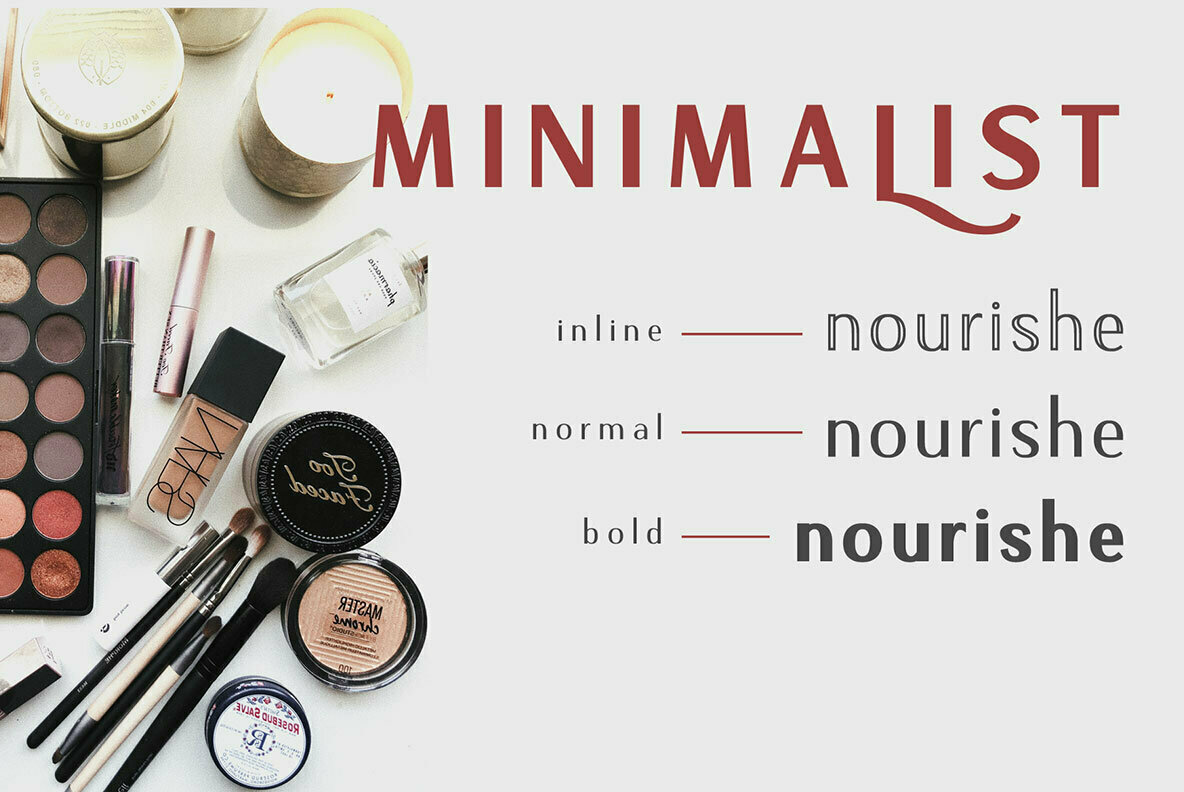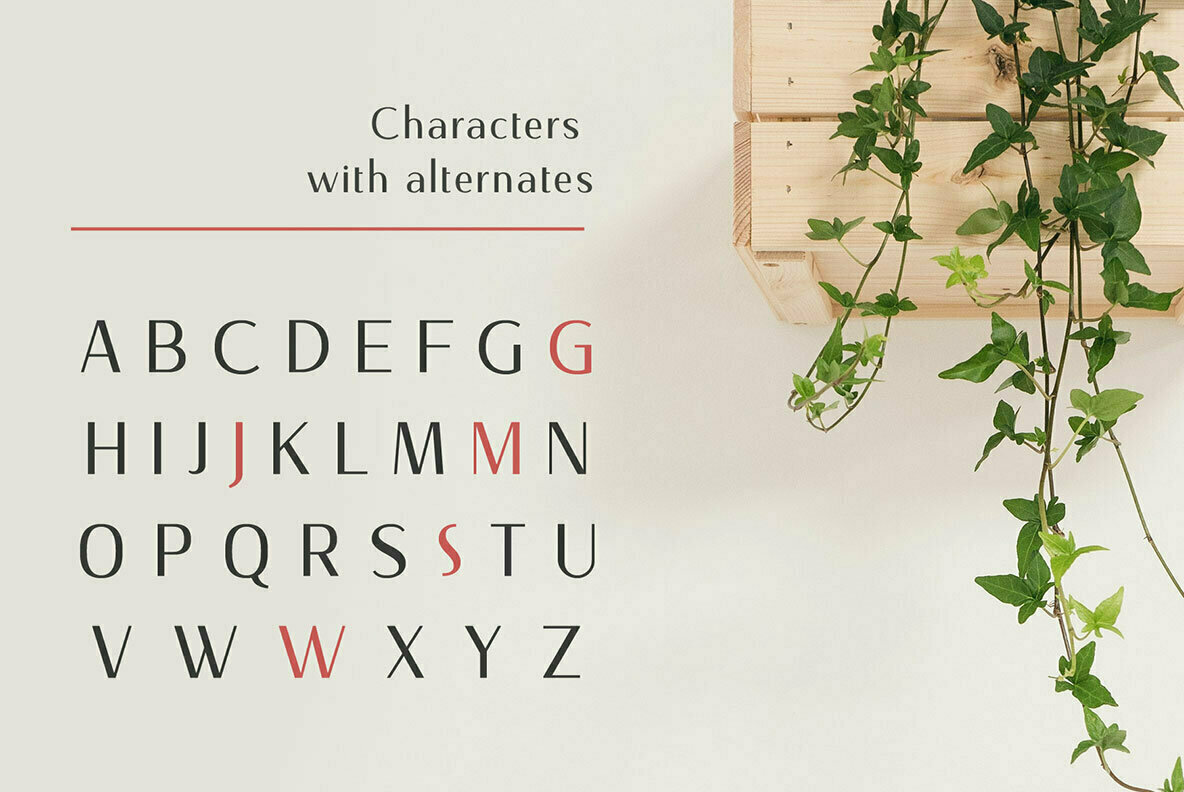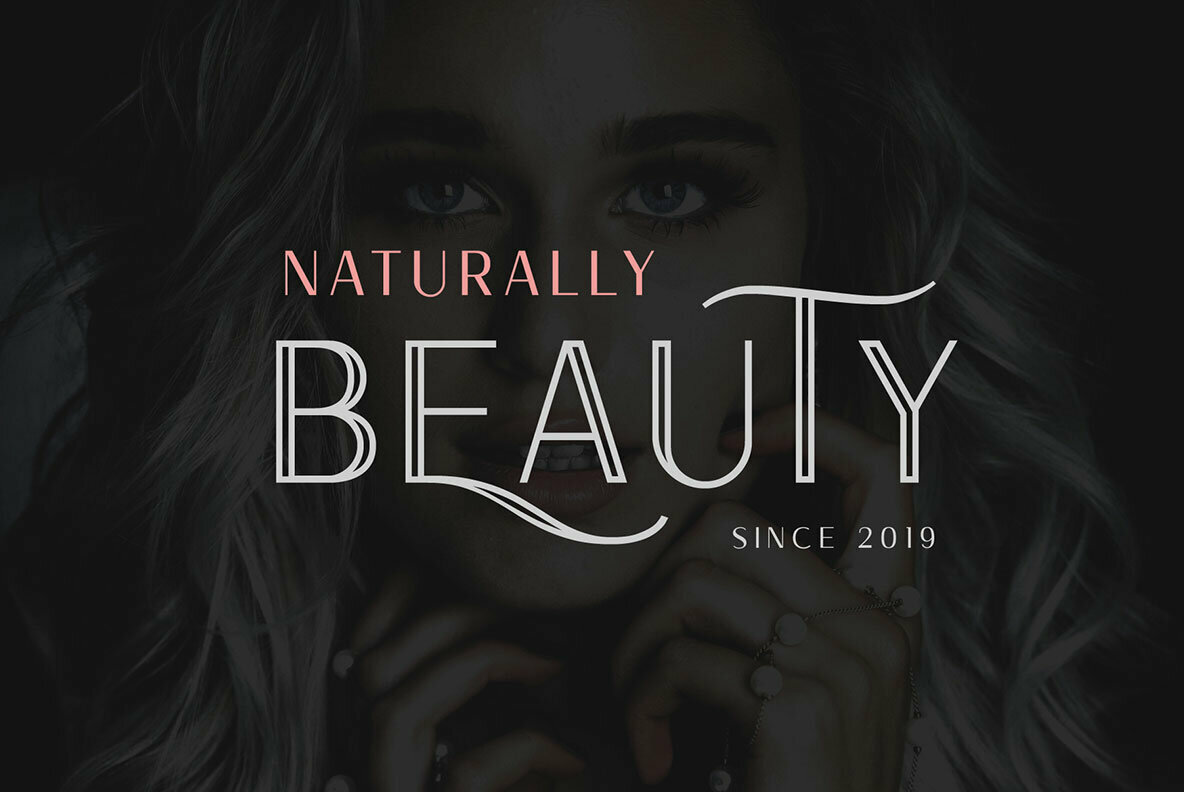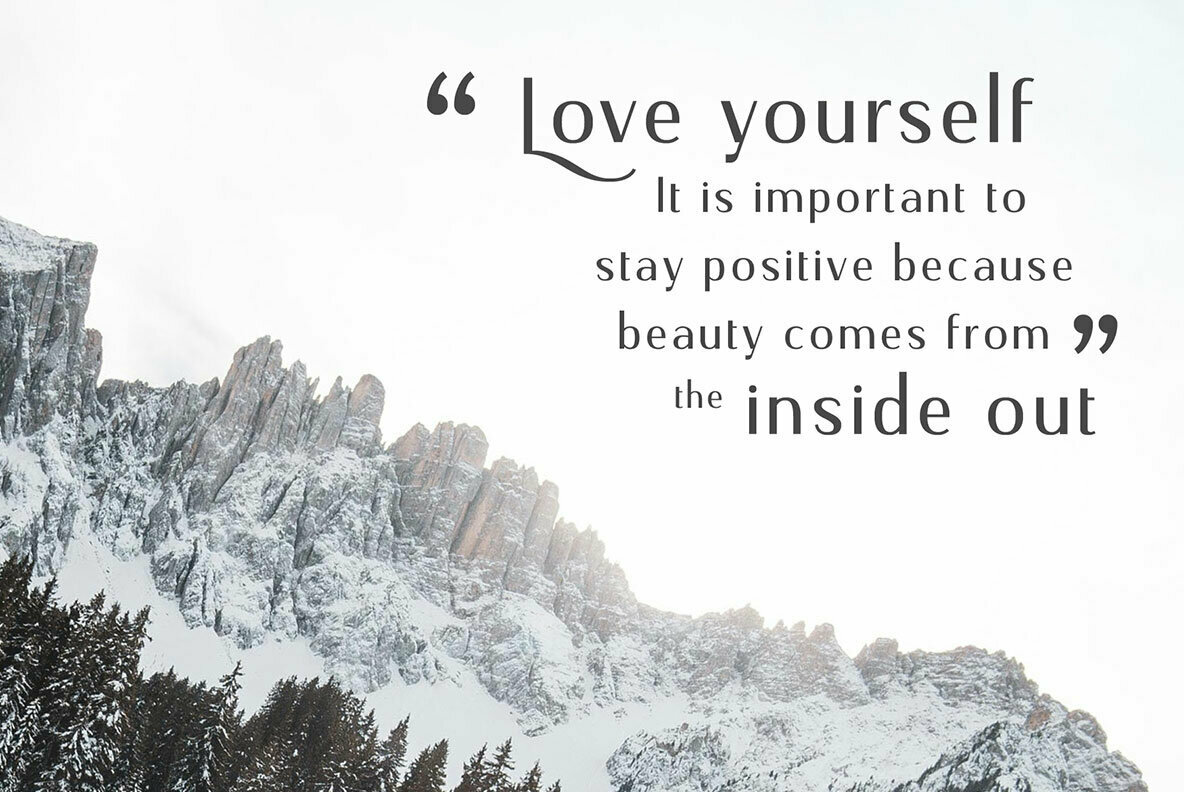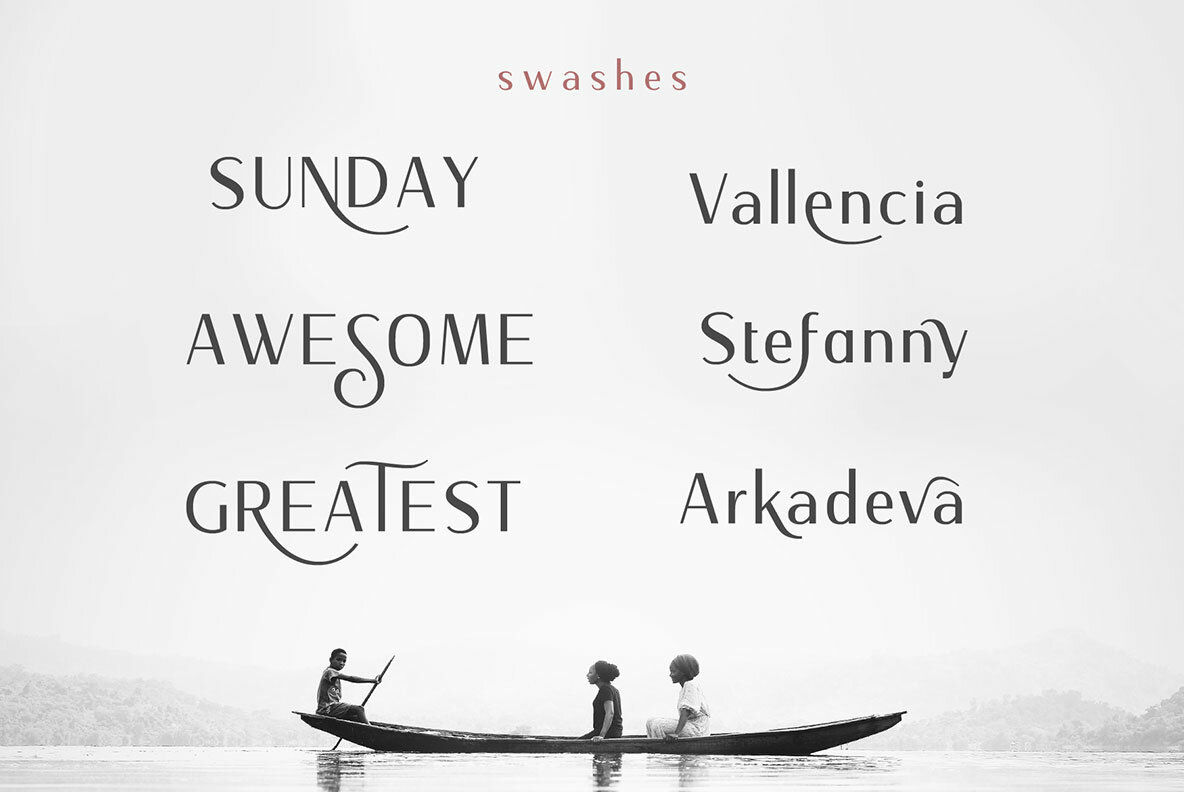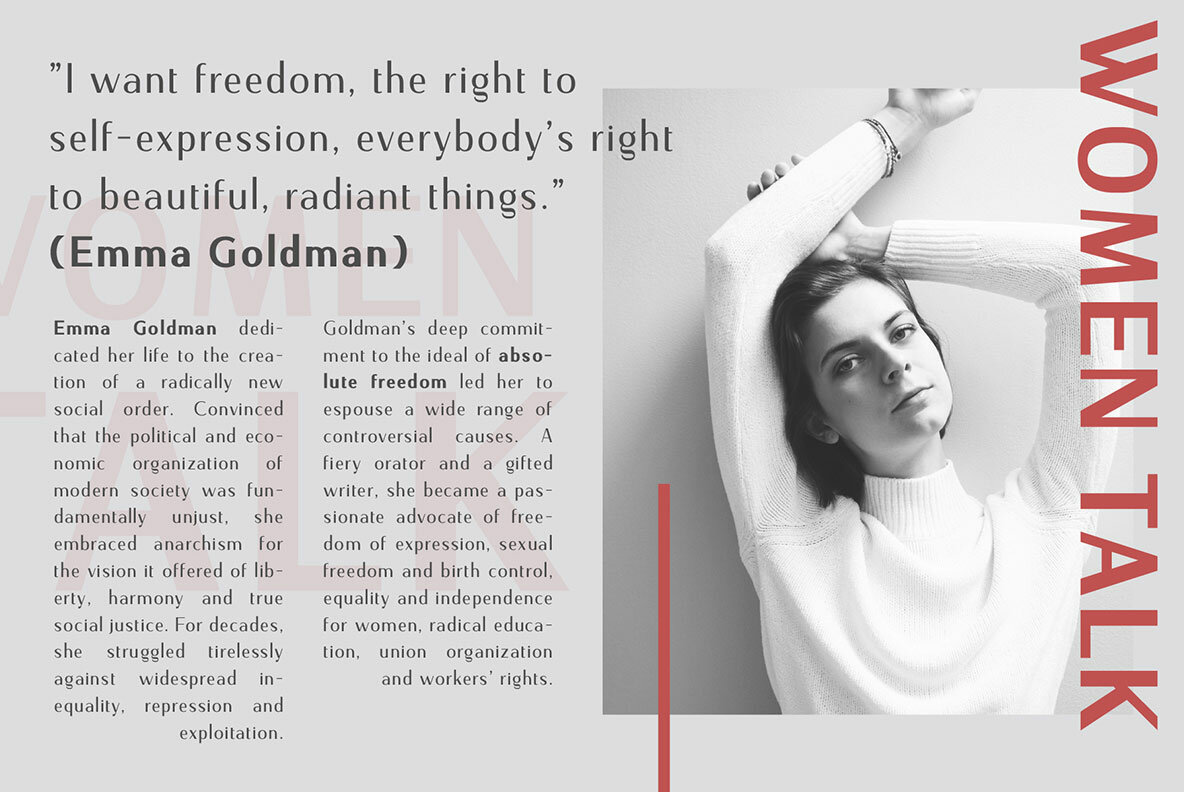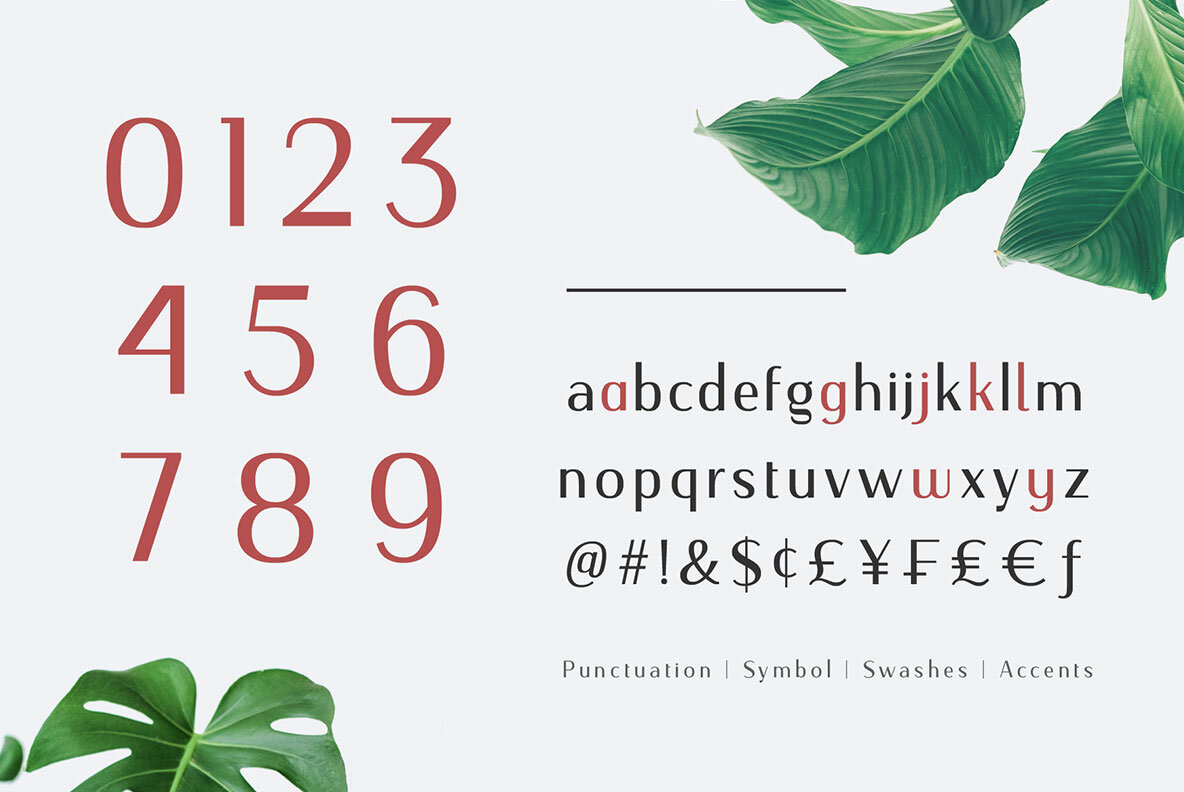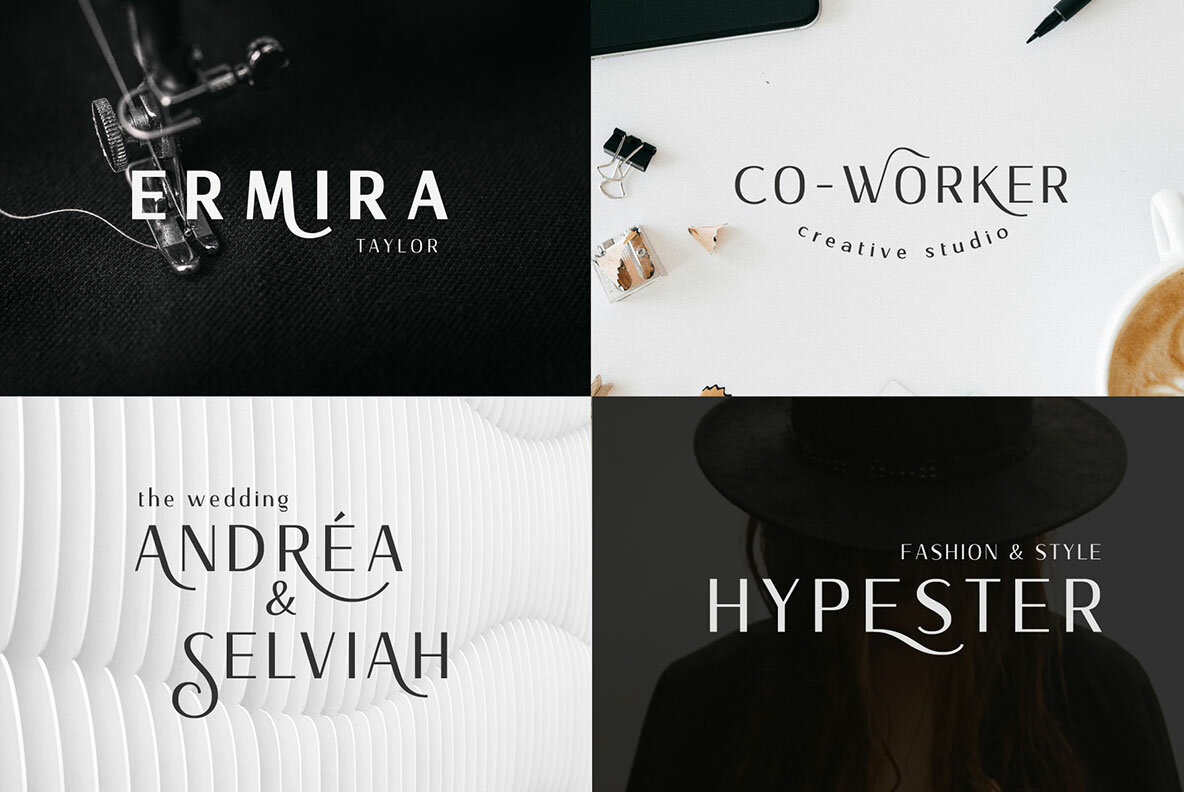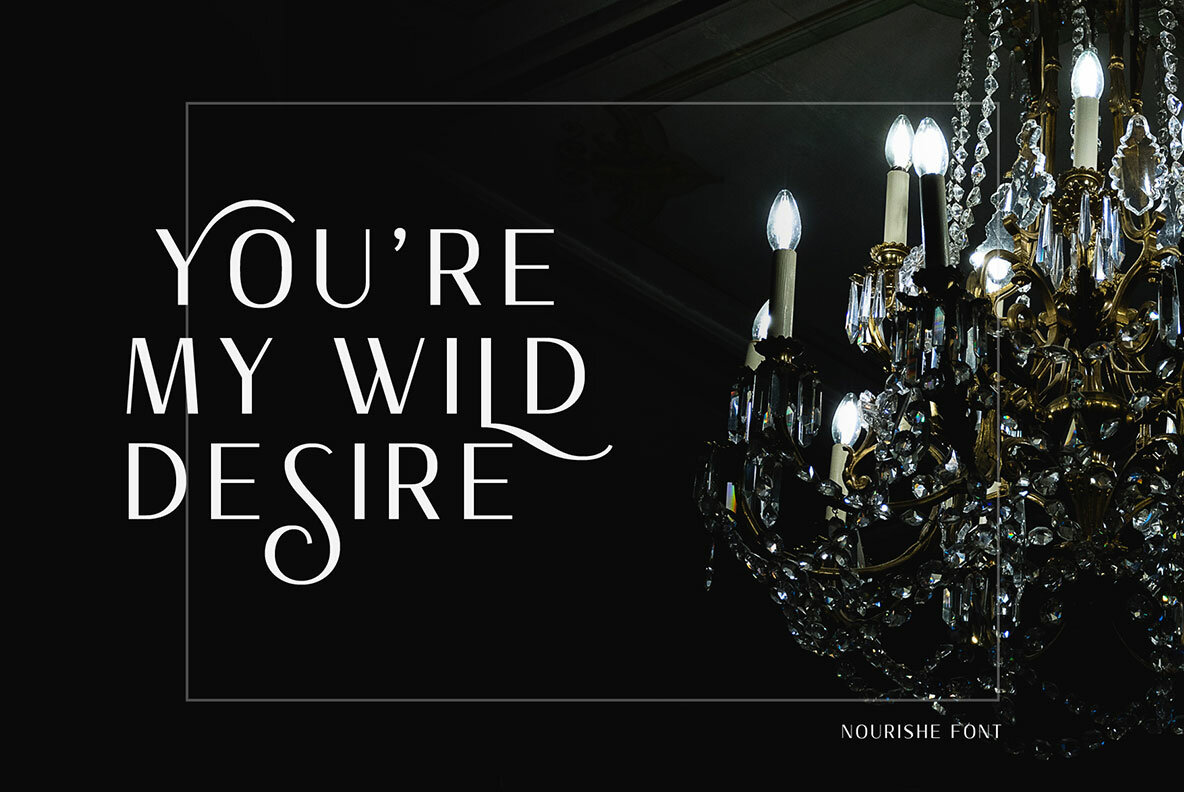
Nourishe Font
The art of typography is ever-evolving, and amidst this transformation, sans serif fonts like Nourishe have found their niche. Seamlessly combining duo-line structures with minimalist strokes and feminine curves, Nourishe is your ideal partner for branding and editorial design. Nourishe boasts open-type features, offering you versatile alternates and swashes to enhance your creative projects. With its elegant style and adaptability, it is poised to be a mainstay in contemporary graphic design.Nourishe: The Quintessential Minimalist Font